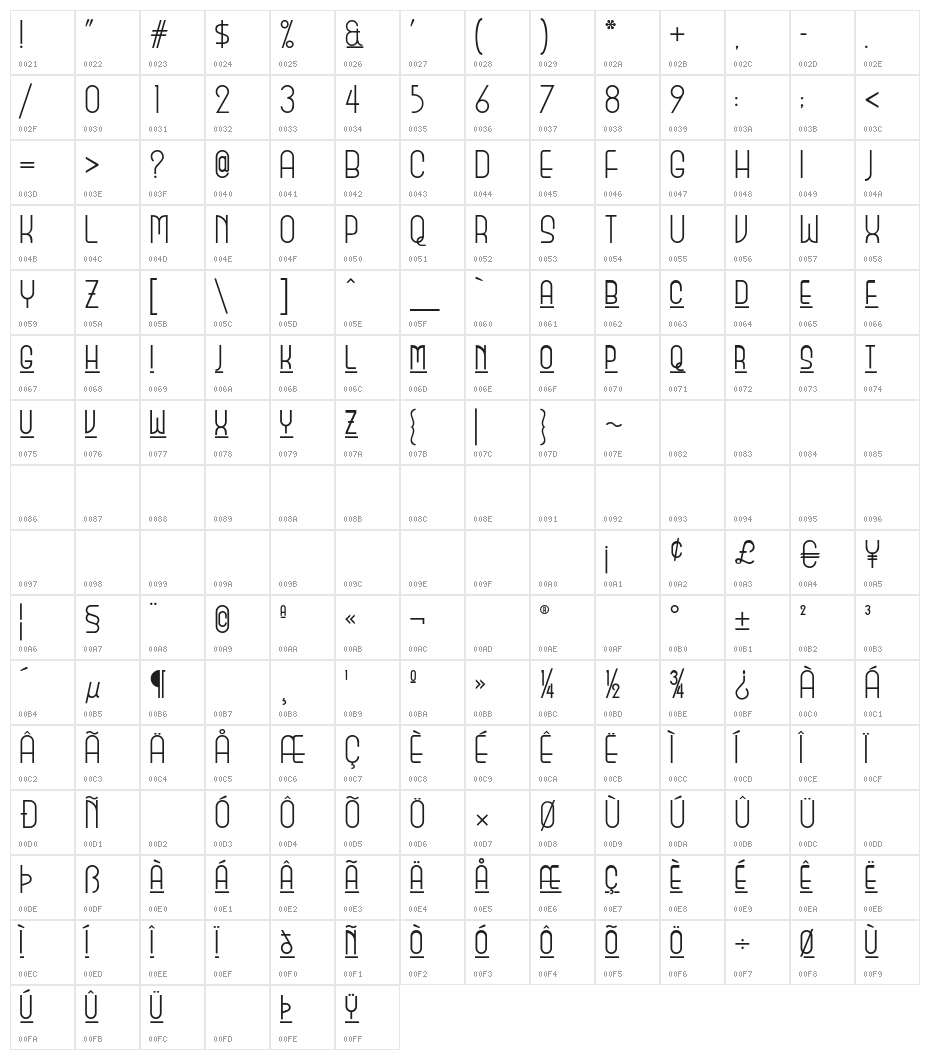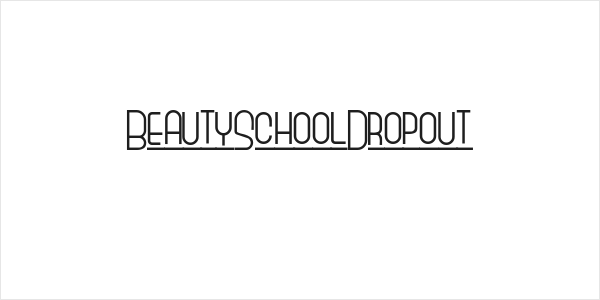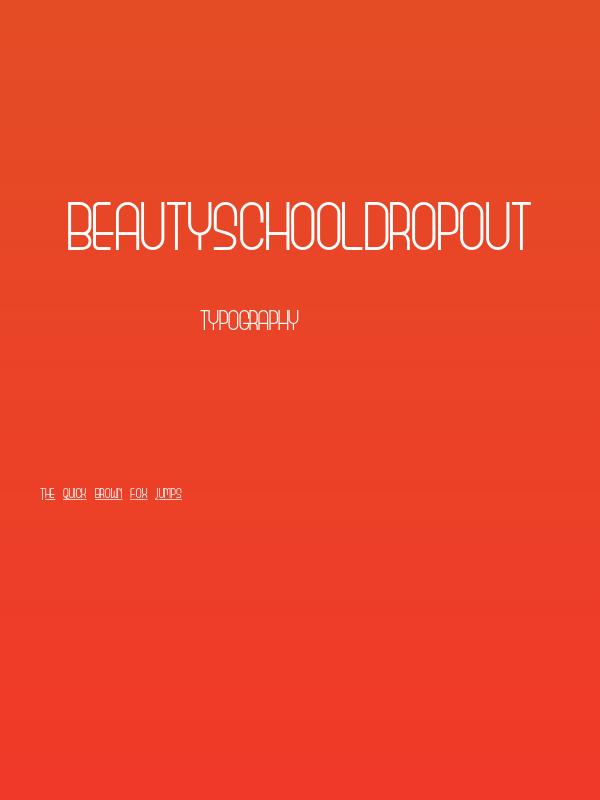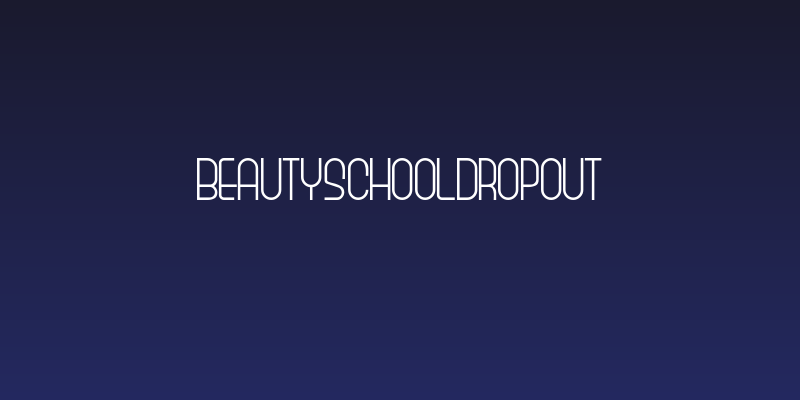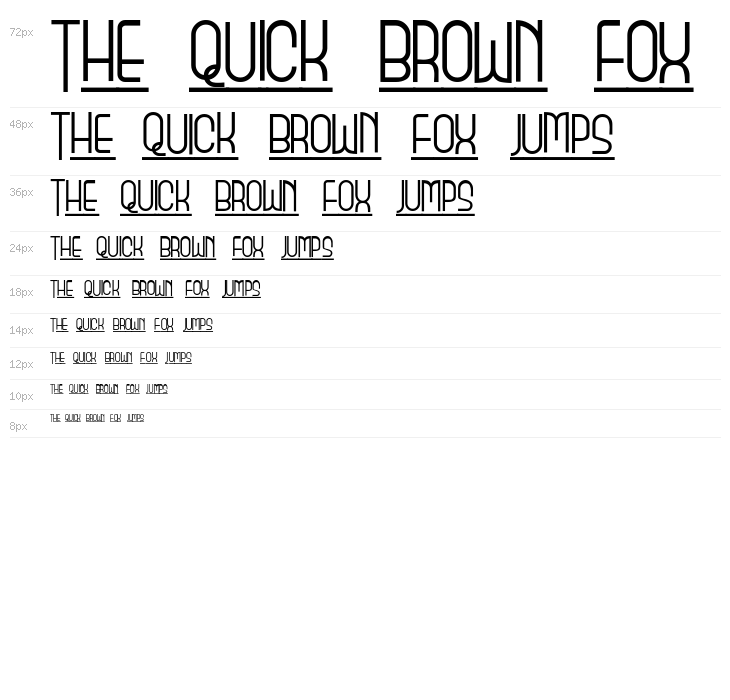
BeautySchoolDropout Font
BeautySchoolDropout Description
This font features a unique, elongated design with a modern and stylish appearance. The characters are tall and narrow, giving them a sleek and sophisticated look. The uppercase letters are consistent in height, while the lowercase letters maintain a similar structure, enhancing readability. The numbers and special characters follow the same design principles, ensuring uniformity across all elements. The font's clean lines and minimalistic style make it suitable for contemporary design projects, where a touch of elegance and modernity is desired.
Proposed ProjectsIdeal for fashion branding, editorial design, and modern advertising campaigns.